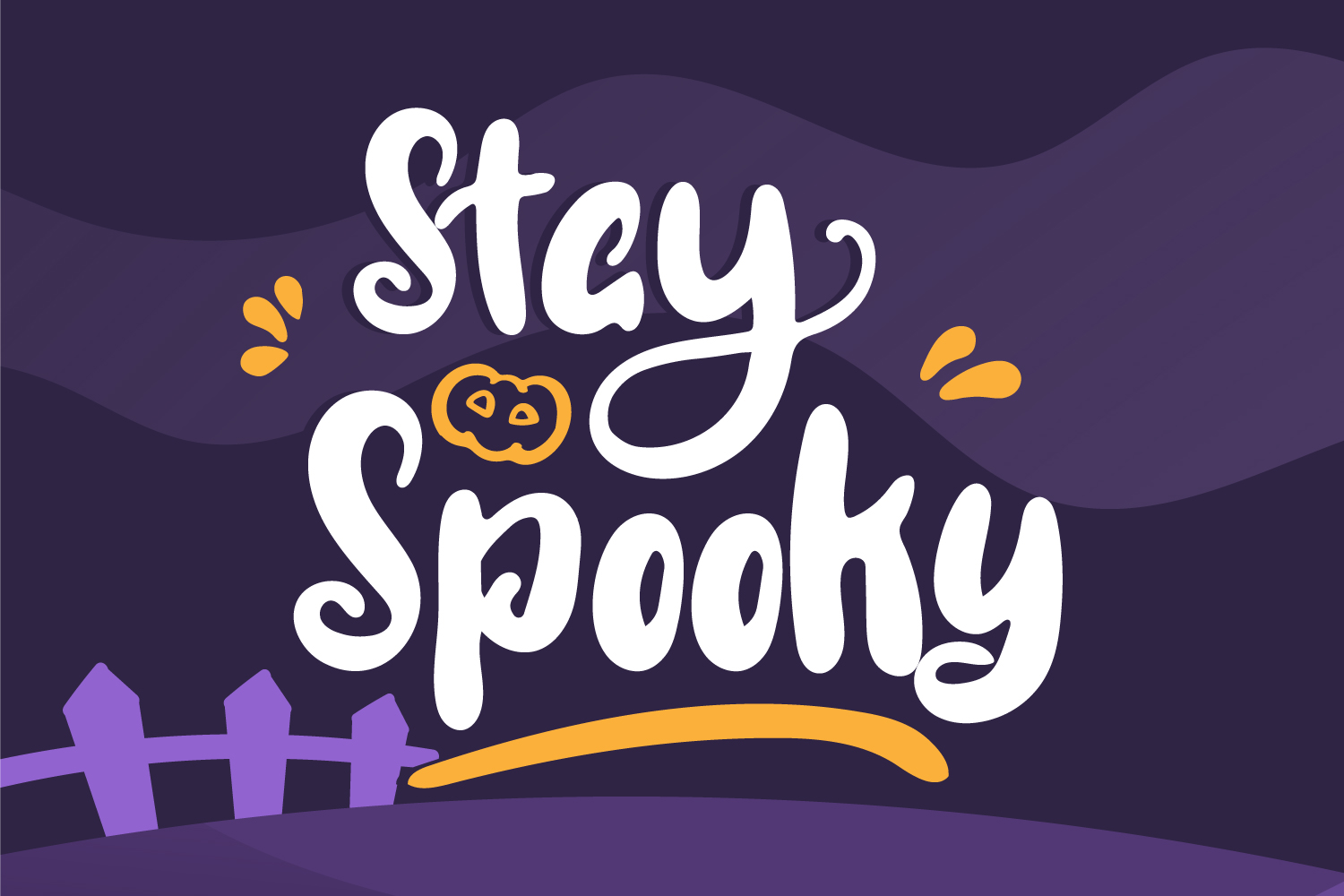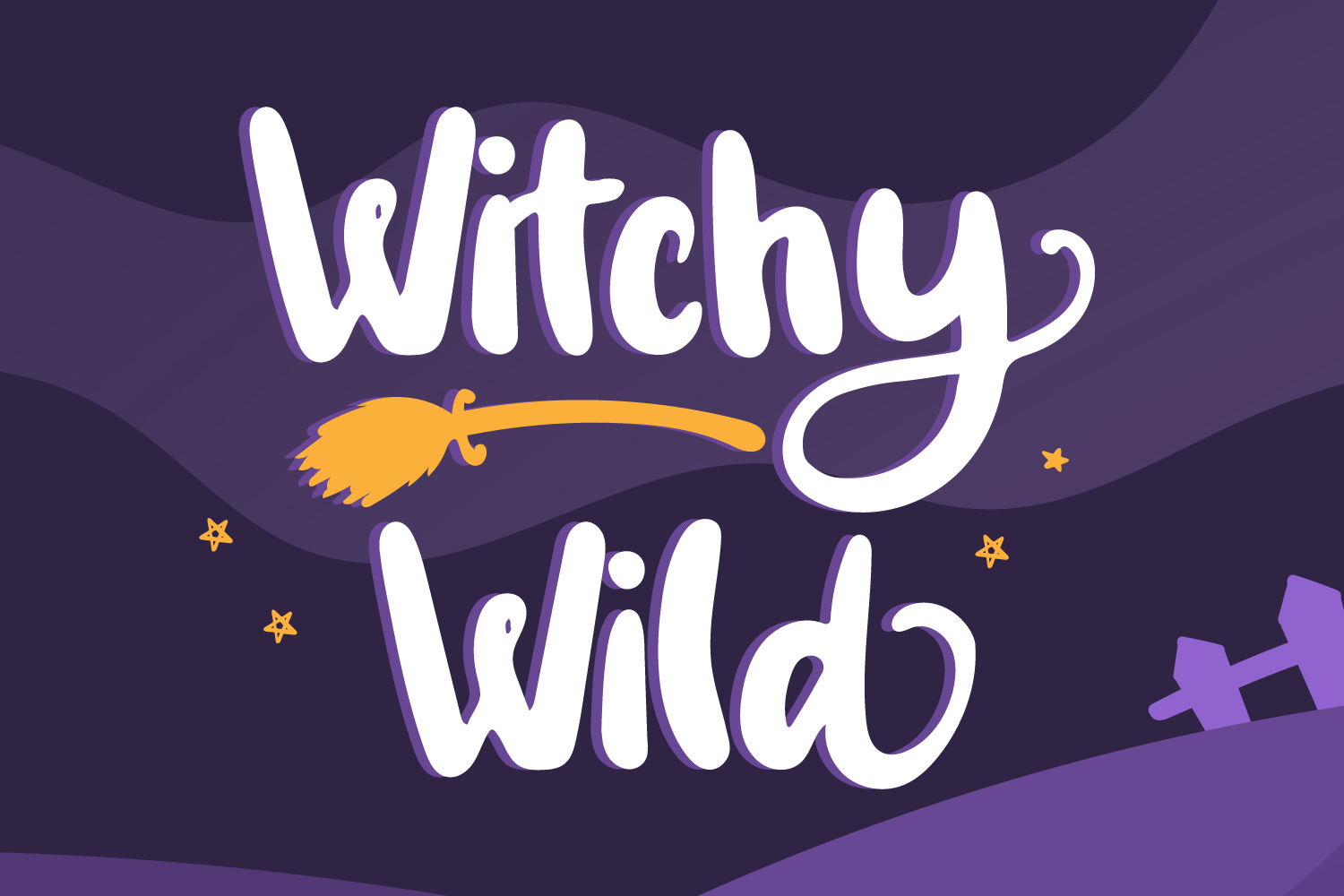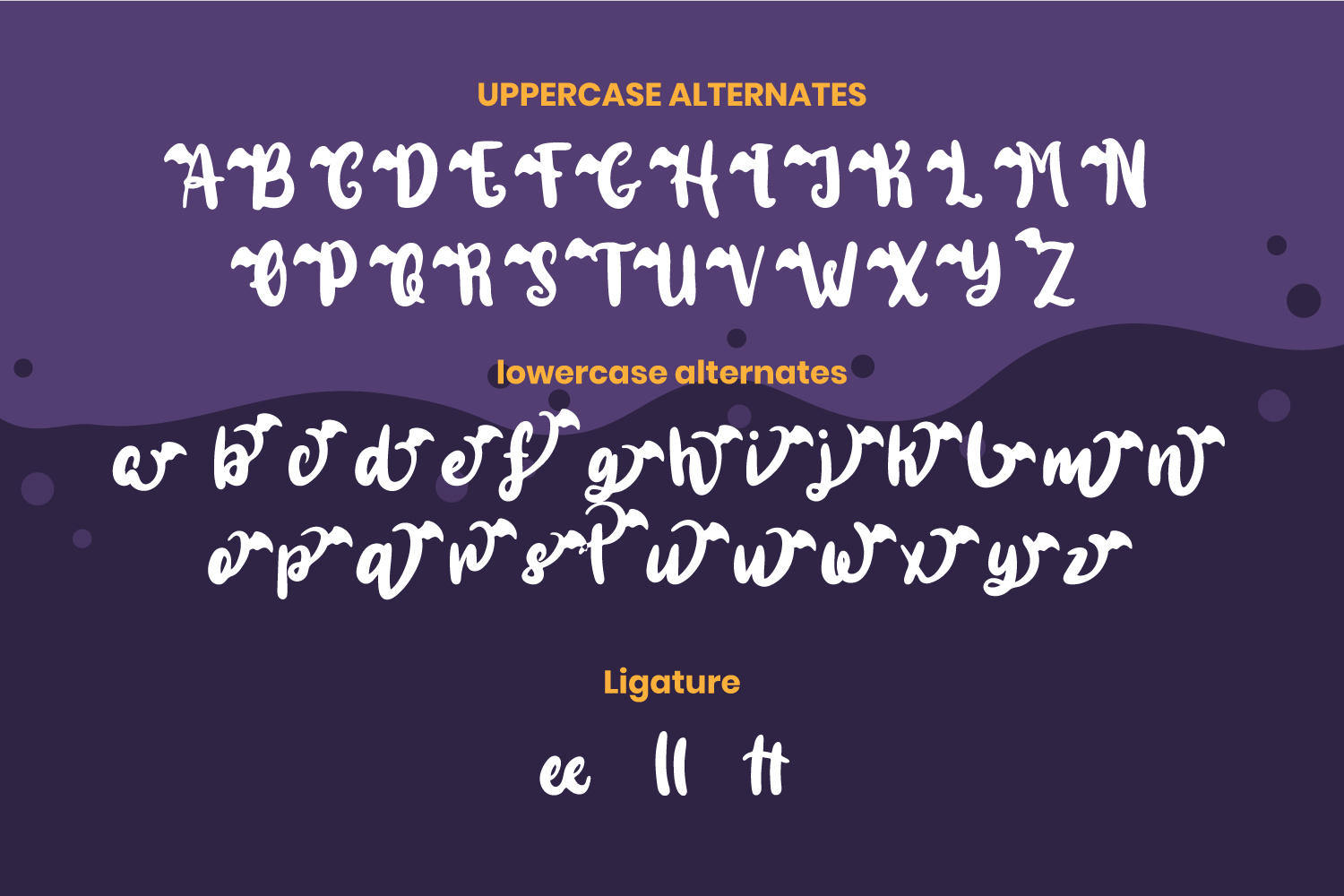
Night Halloween Font
Night Halloween Display Font
This is a cool, chic and spooky display font. This font is PUA encoded which means you can access all of the glyphs and swashes with ease! Add it confidently to your October creations and let yourself be amazed by the outcome generated.